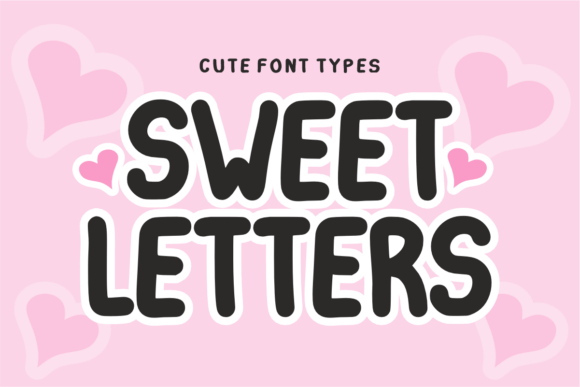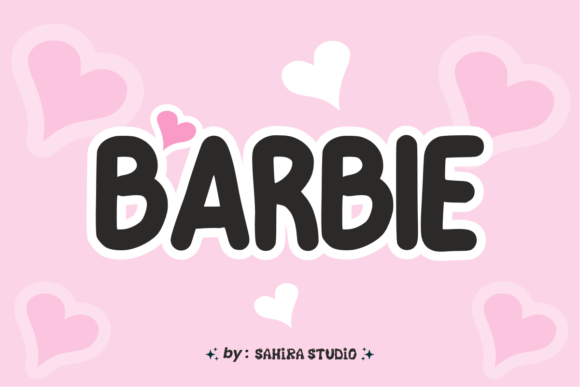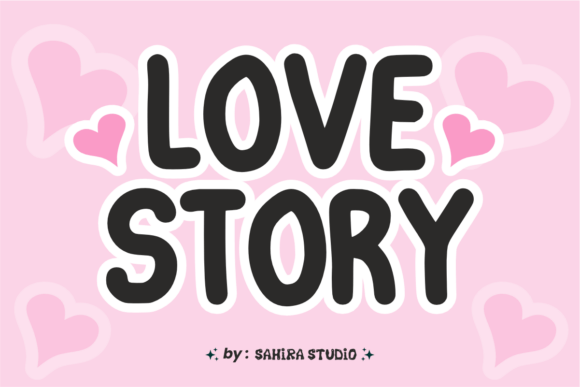
Cute Sahira Font: The Perfect Addition to Your Font Library
Are you a designer, crafter, or DIY enthusiast looking for a font that can add a touch of romance and whimsy to your creations? Look no further than the Cute Sahira Font! This handmade display font is a beautiful and versatile addition to any font library, and is sure to enhance any project you work on.
What is Cute Sahira Font?
Cute Sahira is a unique and charming font that is perfect for a wide range of creative projects. Its handmade, display font style gives it a personal and distinctive touch that is sure to make your work stand out. Whether you’re creating logos, greeting cards, mugs, t-shirts, invitations, or any other type of craft or design, Cute Sahira Font is the perfect choice.
Key Features of Cute Sahira Font
- Cute and Romantic: Cute Sahira Font has a sweet and romantic feel that is perfect for creating beautiful and eye-catching designs.
- Handmade Display Font: The font’s handmade, display style gives it a unique and personal touch that is sure to make your work stand out.
- Versatile: Cute Sahira Font is perfect for a wide range of creative projects, from logos and greeting cards to mugs and t-shirts, invitations, and more.
- Easily Readable: Despite its decorative style, Cute Sahira Font is still easily readable, making it perfect for use in a variety of contexts.
Uses for Cute Sahira Font
Cute Sahira Font is a versatile font that can be used in a wide range of creative projects. Here are just a few ideas to get you started:
- Logos: Add a touch of personality to your logo with Cute Sahira Font. Its unique style is sure to make your brand stand out.
- Greeting Cards: Create beautiful and eye-catching greeting cards for special occasions like birthdays, weddings, and holidays.
- Mugs and T-Shirts: Add a personal touch to your mugs and t-shirts with Cute Sahira Font. Its cute and romantic style is sure to make your designs stand out.
- Invitations: Create beautiful and elegant invitations for weddings, parties, and other special occasions.
- Comics and Illustrations: Add a touch of whimsy to your comics and illustrations with Cute Sahira Font. Its unique style is sure to bring your characters to life.
Why Choose Cute Sahira Font?
There are many fonts to choose from, but Cute Sahira Font stands out for its unique and charming style. Here are just a few reasons why you should choose Cute Sahira Font for your next project:
- Unique Style: Cute Sahira Font has a unique and distinctive style that is sure to make your work stand out.
In conclusion, Cute Sahira Font is a beautiful and versatile font that is perfect for a wide range of creative projects. Its unique and charming style is sure to make your work stand out, and its ease of use and high-quality design make it a great choice for designers and crafters of all levels. Whether you’re creating logos, greeting cards, mugs, t-shirts, or any other type of craft or design, Cute Sahira Font is the perfect addition to your font library.
Cute Sahira Font is a must-have for designers and crafters who want to add a touch of romance and whimsy to their creations. With its unique style, ease of use, and high-quality design, it’s the perfect font for anyone looking to take their designs to the next level.